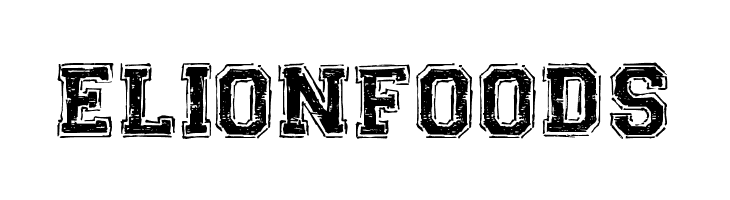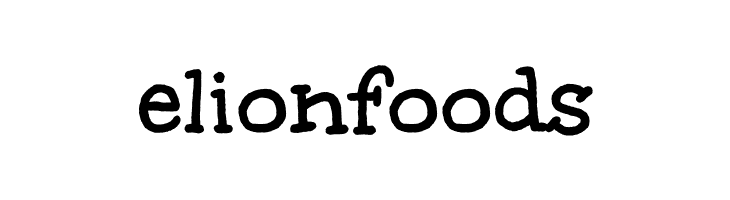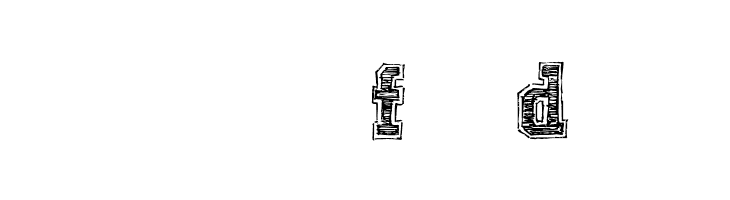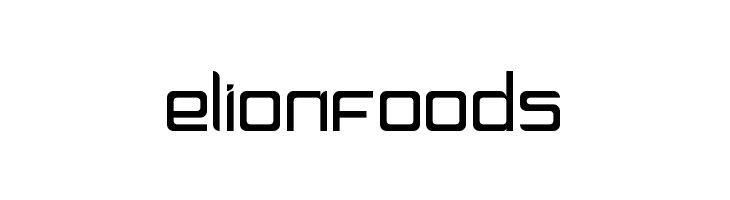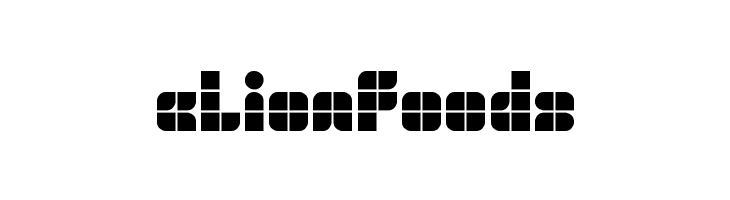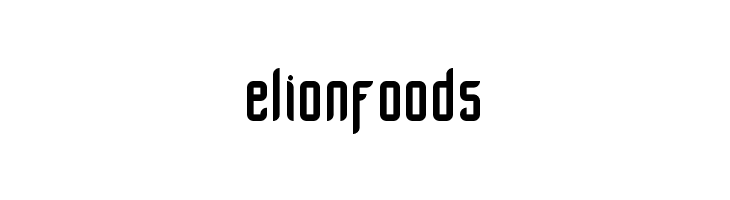
A modern, geometric font with bold, uniform strokes and unique cutouts.
A modern, geometric font with a futuristic and technical design.
A bold, decorative font with a hand-drawn, vintage collegiate style.
A bold, decorative font with a distressed, vintage appearance.
A bold, decorative font with a vintage, textured style ideal for standout designs.
A geometric, modular font with a bold, modern design.
A geometric, modular font with a bold, modern aesthetic.
A playful, hand-drawn font with irregular, whimsical strokes.